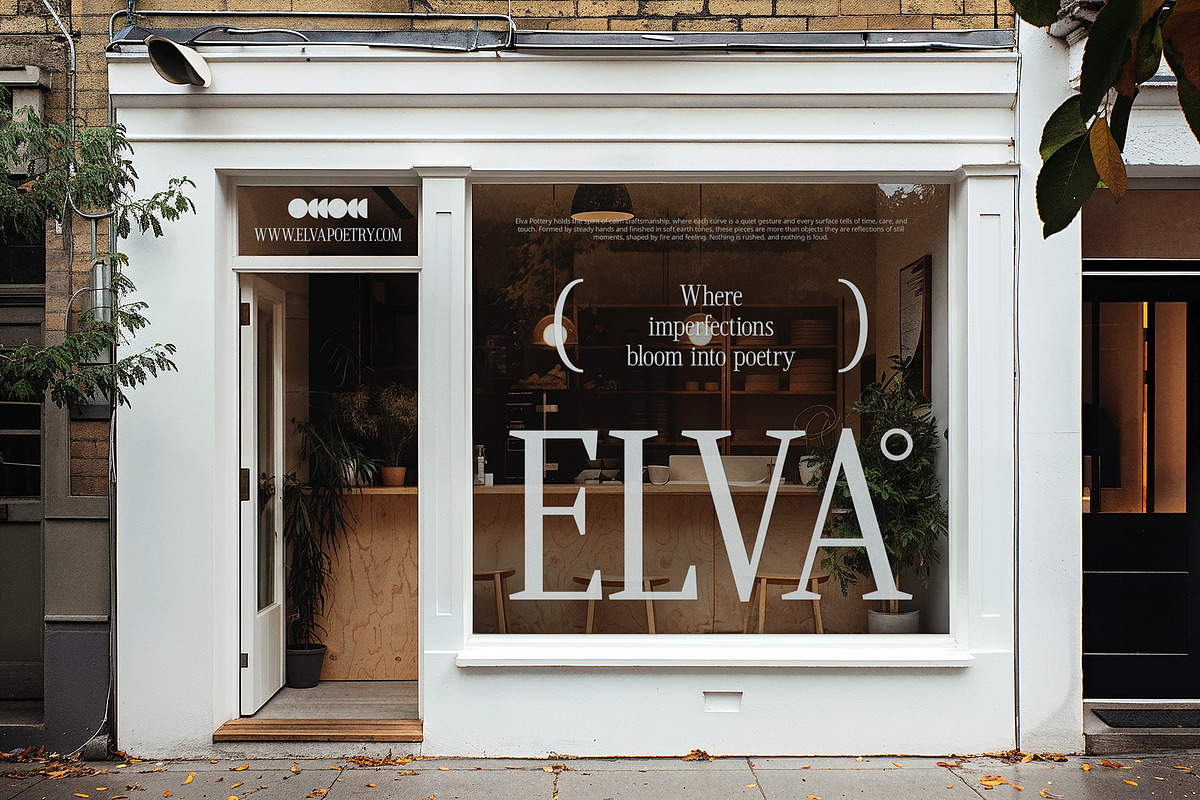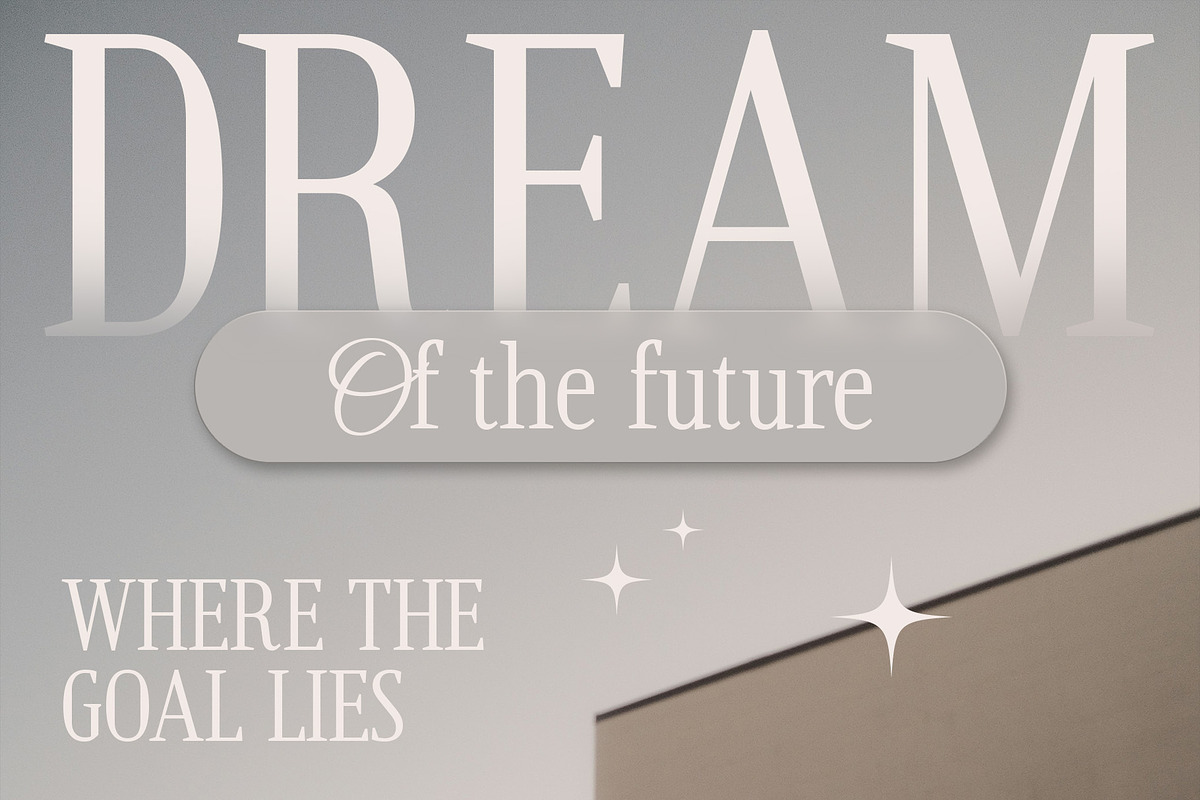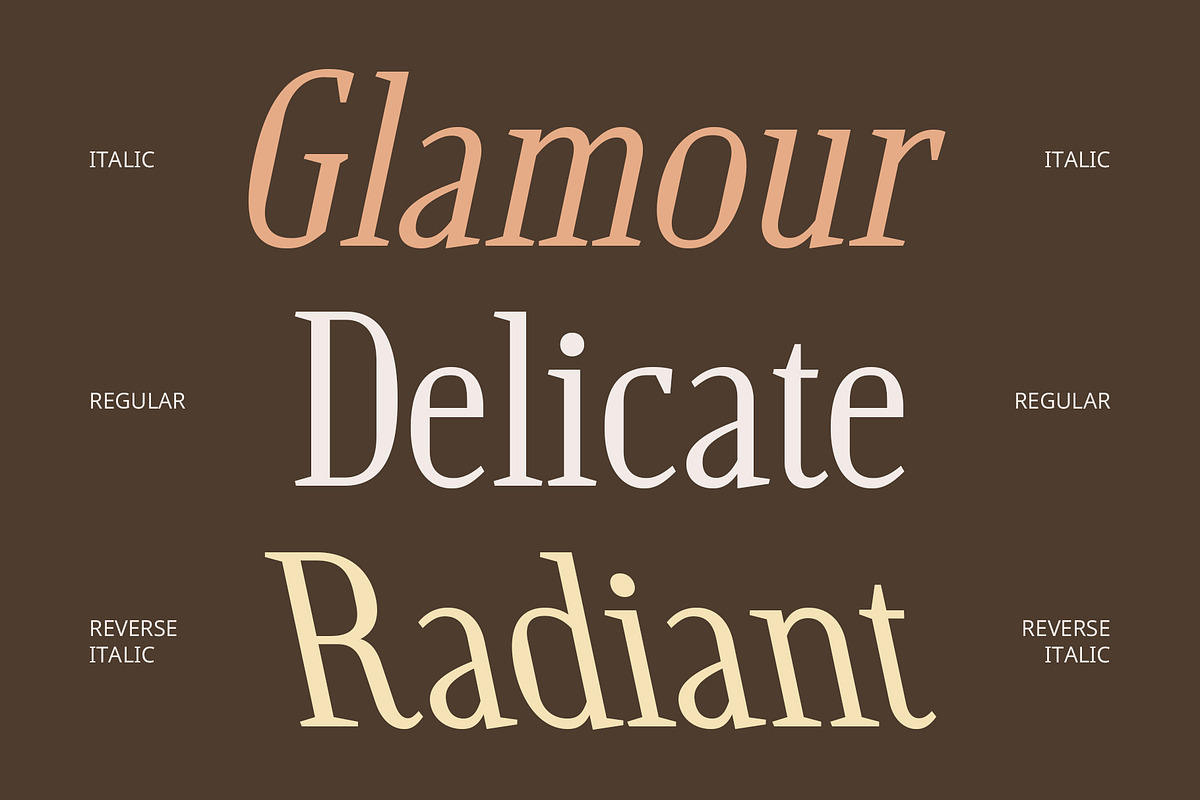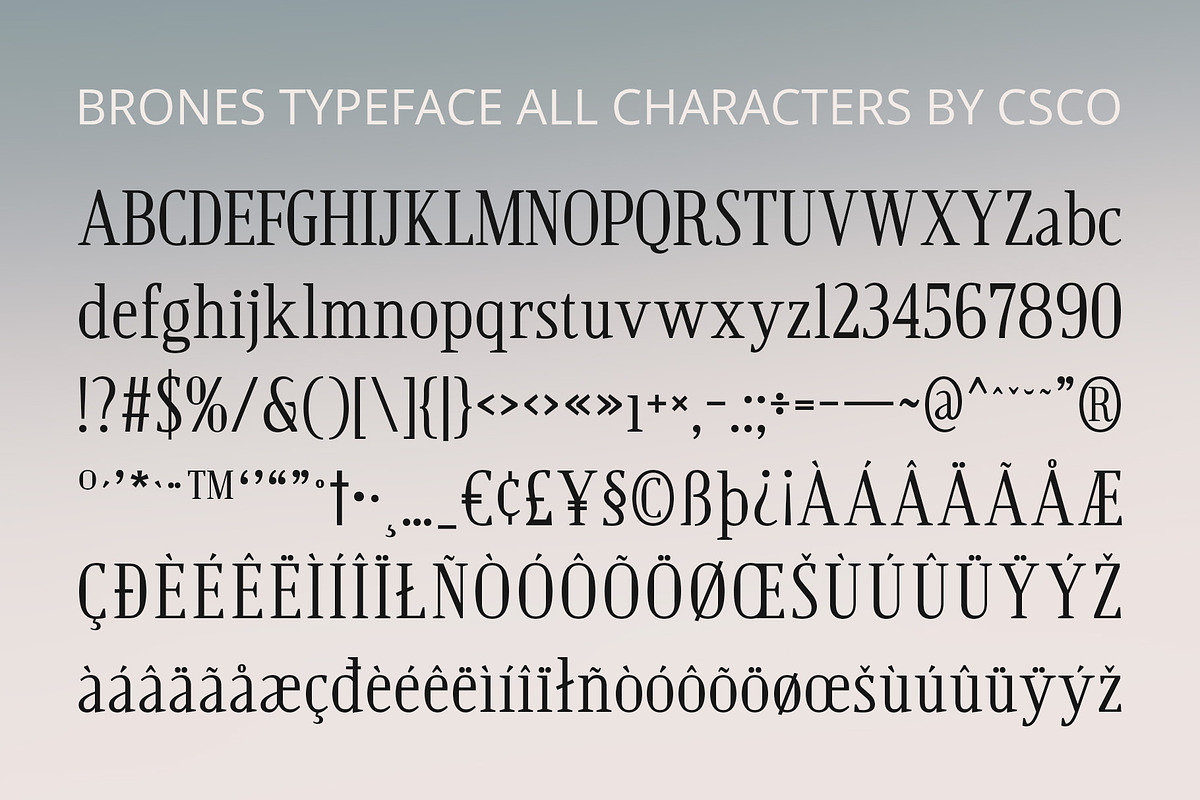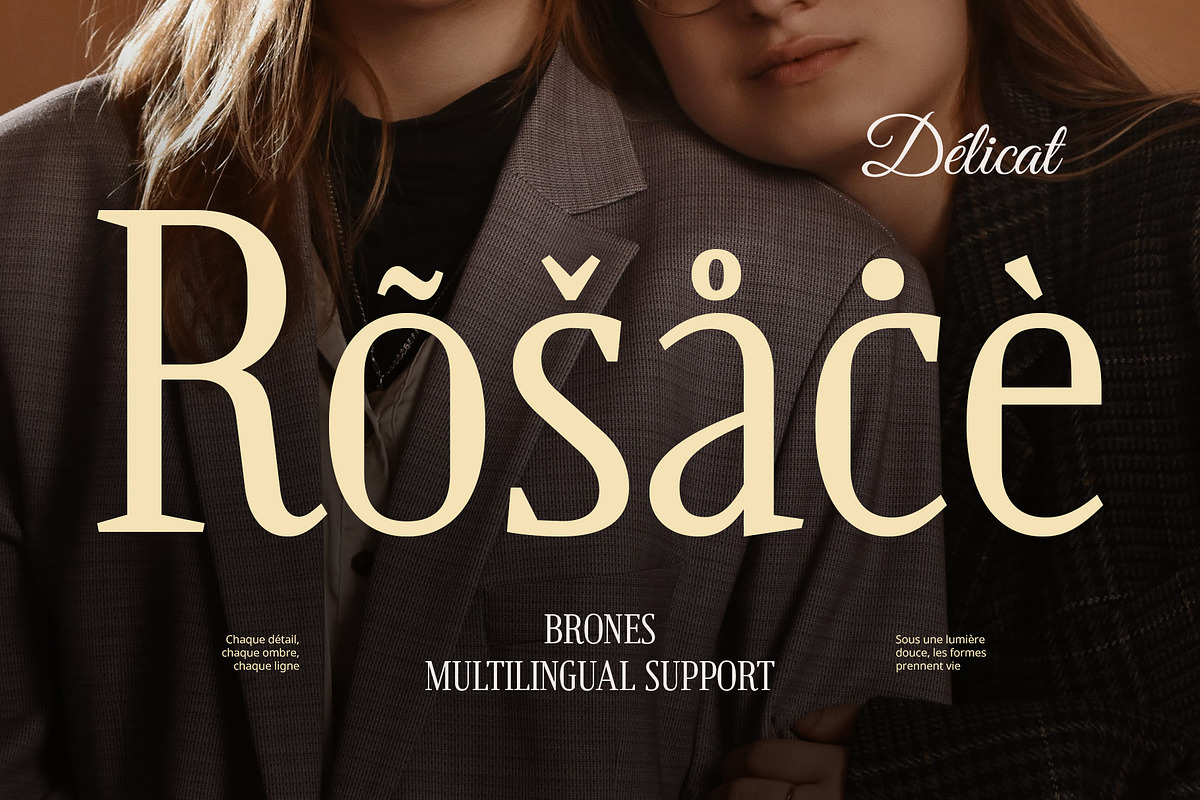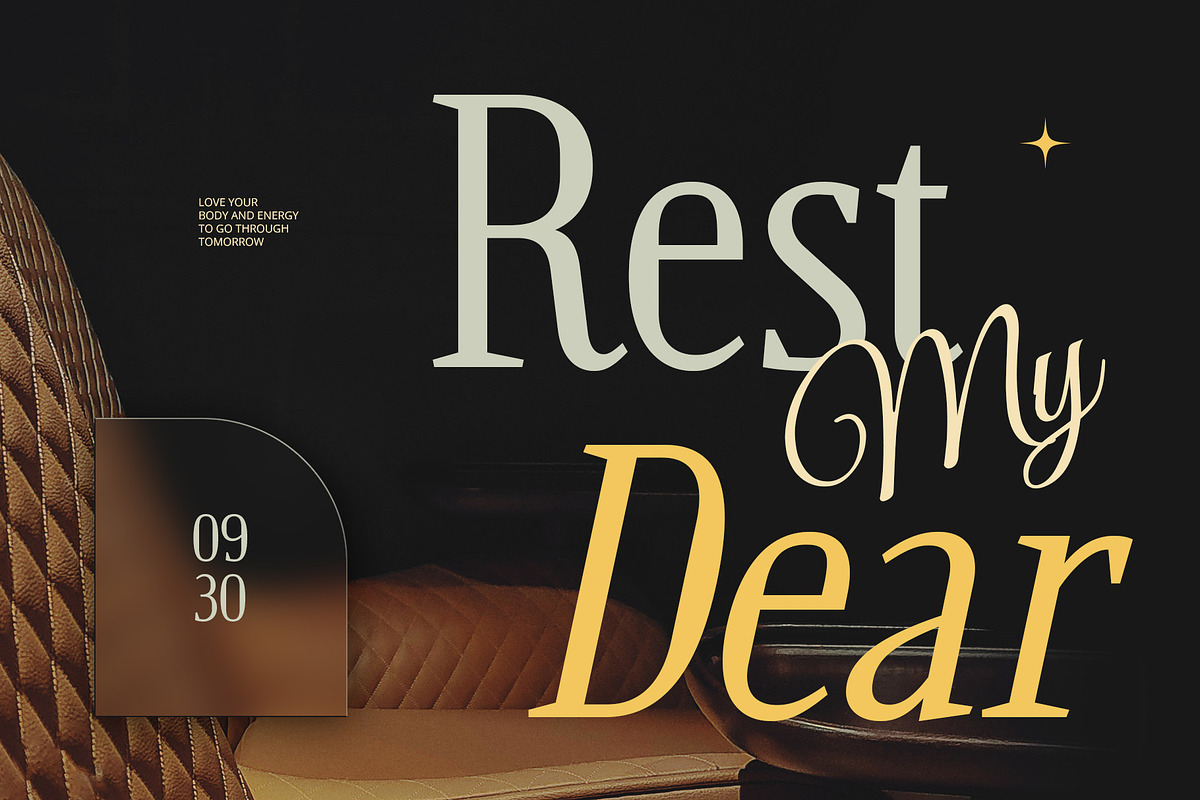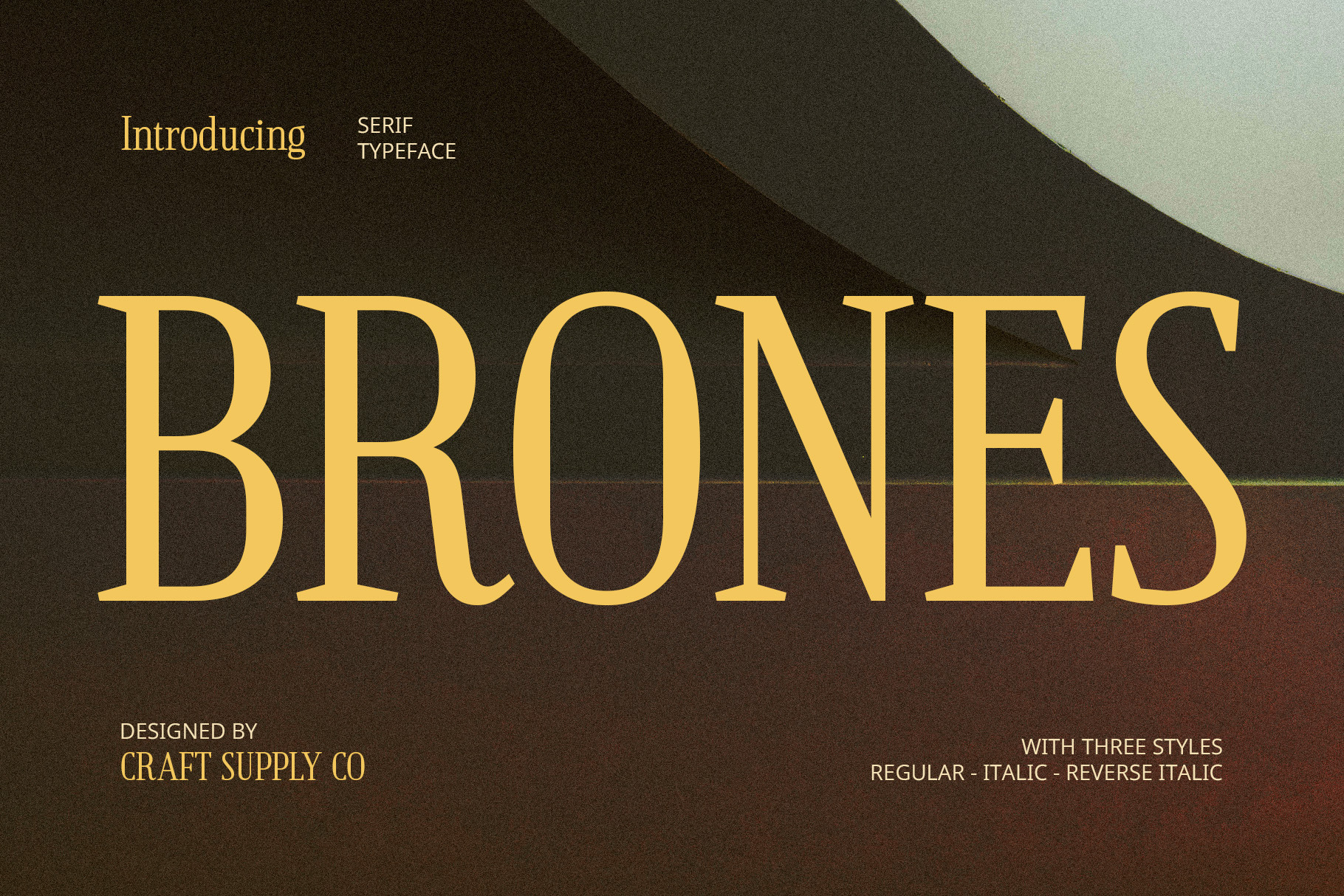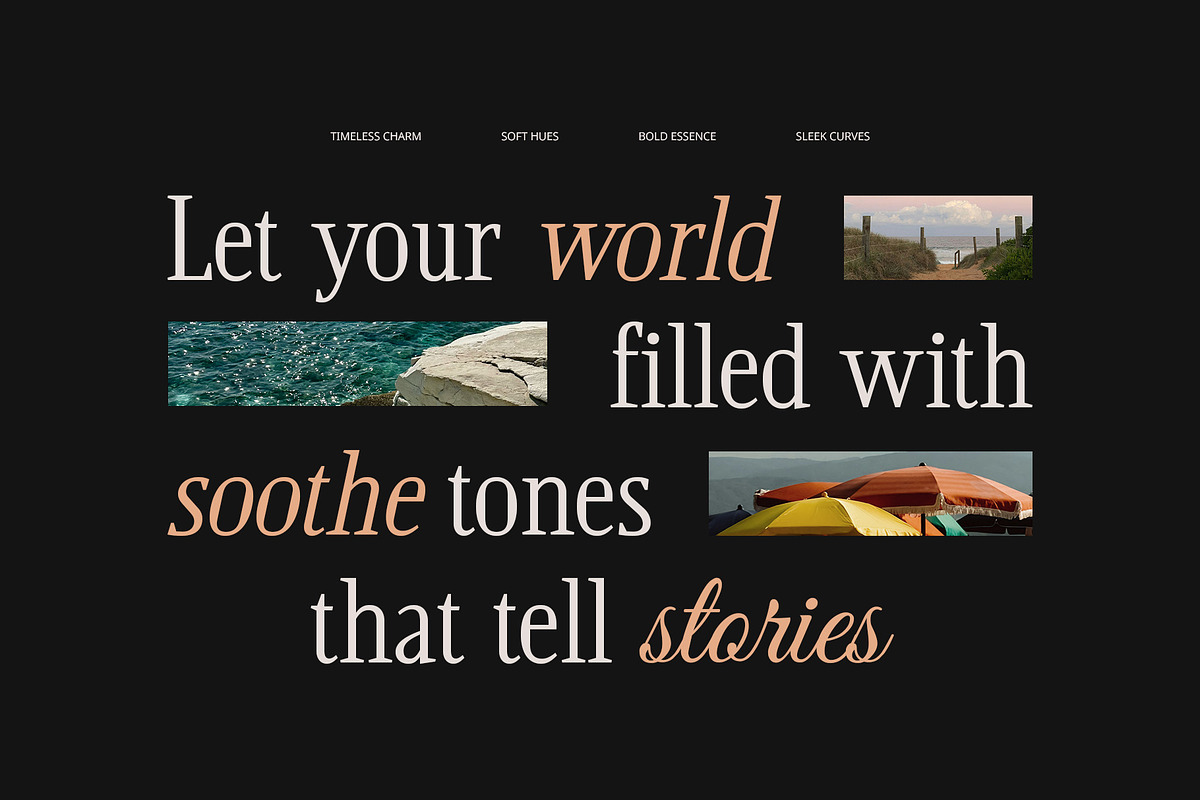
Brones – Classic Font
Brones – Classic Font: Modern Classic Serif Design
Modern Classic Serif with Timeless Elegance Brones – Classic Font is a modern classic serif font that beautifully merges contemporary elements with timeless design touches. The sharp, refined serifs and clean letterforms exude sophistication, creating a professional, elegant, and highly readable appearance. This combination makes it an ideal choice for a variety of design projects.
Balanced Design for Professional Appeal The strength of Brones Font lies in its well-balanced design. The contrast between sharp serifs and smooth, clean letterforms results in a font that is both stylish and highly legible. Its thoughtful structure ensures that it stands out without overwhelming, making it an excellent choice for any project that demands visual clarity with a touch of elegance.
Versatile for Various Applications Despite its classic influences, Brones Font is incredibly versatile, making it ideal for both traditional and contemporary design applications. Whether it’s for print or digital media, this font offers a luxurious and refined feel while maintaining a modern edge. Its adaptability makes it perfect for editorial layouts, branding, web design, and more.
Perfect for Branding and Editorial Projects Brones Font is a perfect fit for branding, editorial design, and high-end digital projects that require a refined yet modern touch. Its versatility and timeless appeal ensure it can effortlessly elevate creative concepts, from fashion brands to editorial magazines.
- Brones Regular
- Brones Italic
- Brones Reverse Italic